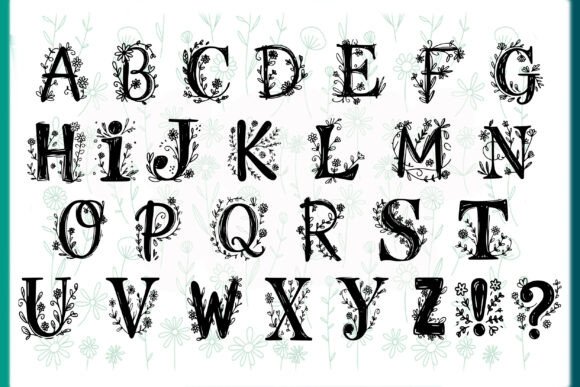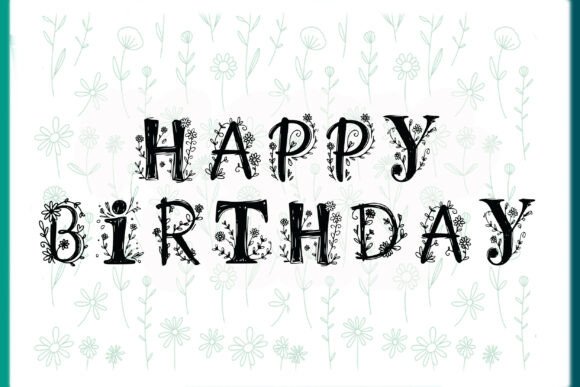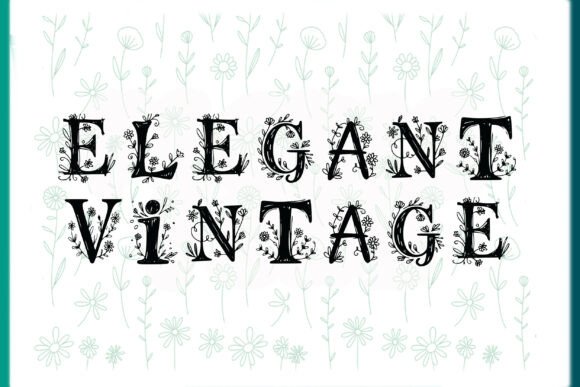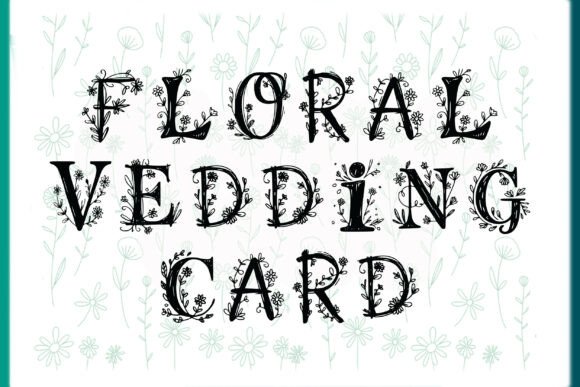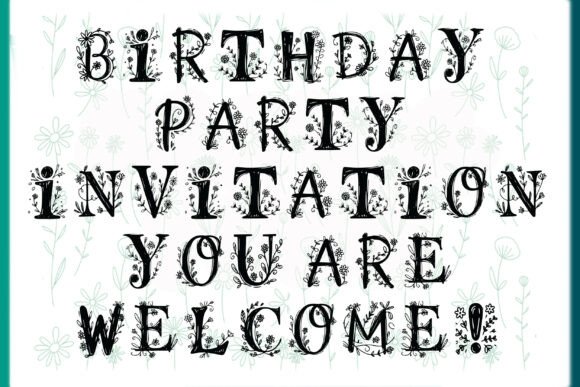
The Magic of Floral Font: Elevate Your Designs with Nature’s Elegance
I’ll never forget the time I was working on a wedding invitation project, and my client asked for a font that would evoke the feeling of a lush garden on a warm summer day. I scoured the internet, tried countless fonts, but nothing seemed quite right. That was until I stumbled upon the enchanting Floral Font. Its delicate, hand-drawn illustrations of blossoming flowers and elegant vines instantly captured the essence of what my client was looking for. In this article, I’ll share with you why Floral Font has become a staple in my design toolkit and how you can make the most of its unique charm.
An Honest Review: What I Love and What to Consider
- ✨ Unique and Whimsical Style: Floral Font’s organic, hand-drawn illustrations add a touch of nature-inspired personality to any design.
- ✅ Elegant and Delicate: The intricate details and flowing lines make it perfect for projects that require a romantic or whimsical touch.
- 🌼 Versatile: Suitable for a wide range of projects, from invitations and posters to social media graphics and branding.
⚠️ While Floral Font is incredibly versatile, it’s essential to note that its intricate details might not be suitable for very small font sizes or projects that require a more formal tone. Additionally, some characters may require manual adjustments to ensure optimal spacing and alignment.
The Story Behind Floral Font: A Glimpse into its Design Inspiration
Floral Font was designed by a talented team of typographers who drew inspiration from the delicate beauty of nature. With a passion for creating unique, hand-drawn illustrations, they crafted a font that would bring a touch of elegance and whimsy to any design. The result is a charming decorative font that has captured the hearts of designers and crafters around the world.
| Font Name | Floral Font |
| Author | Мaria Krasnova |
Q: What type of projects is Floral Font best suited for?
A: Floral Font is perfect for projects that require a natural, whimsical, or romantic touch, such as wedding invitations, spring event posters, beautiful quotes, garden shop branding, and personalized gifts.